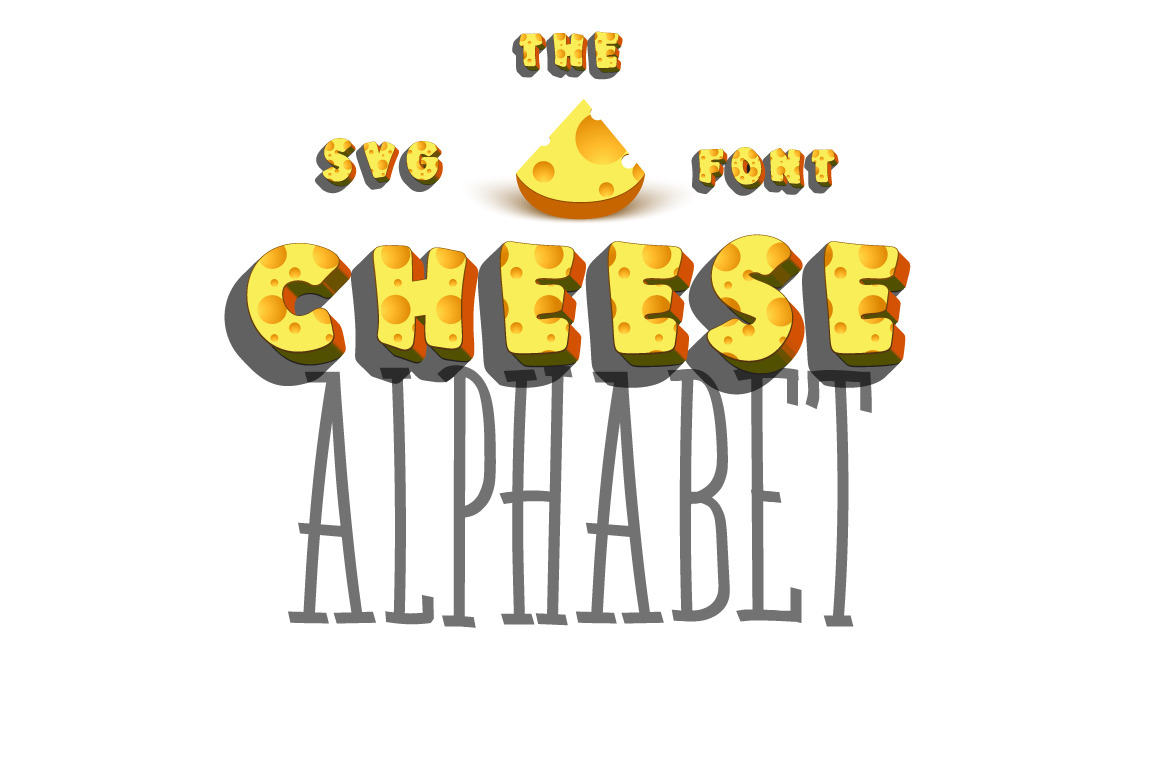
SVG 3d Font - Cheese
Introducing the brand new set of trend SVG Fonts.
Font "Cheese" is perfectly suited to signature, logo, for writing menus, logos of shops, game projects, in a love form of cooking typography quotes, magazine or book cover, website header, flyer, clothing, branding, packaging design and more.